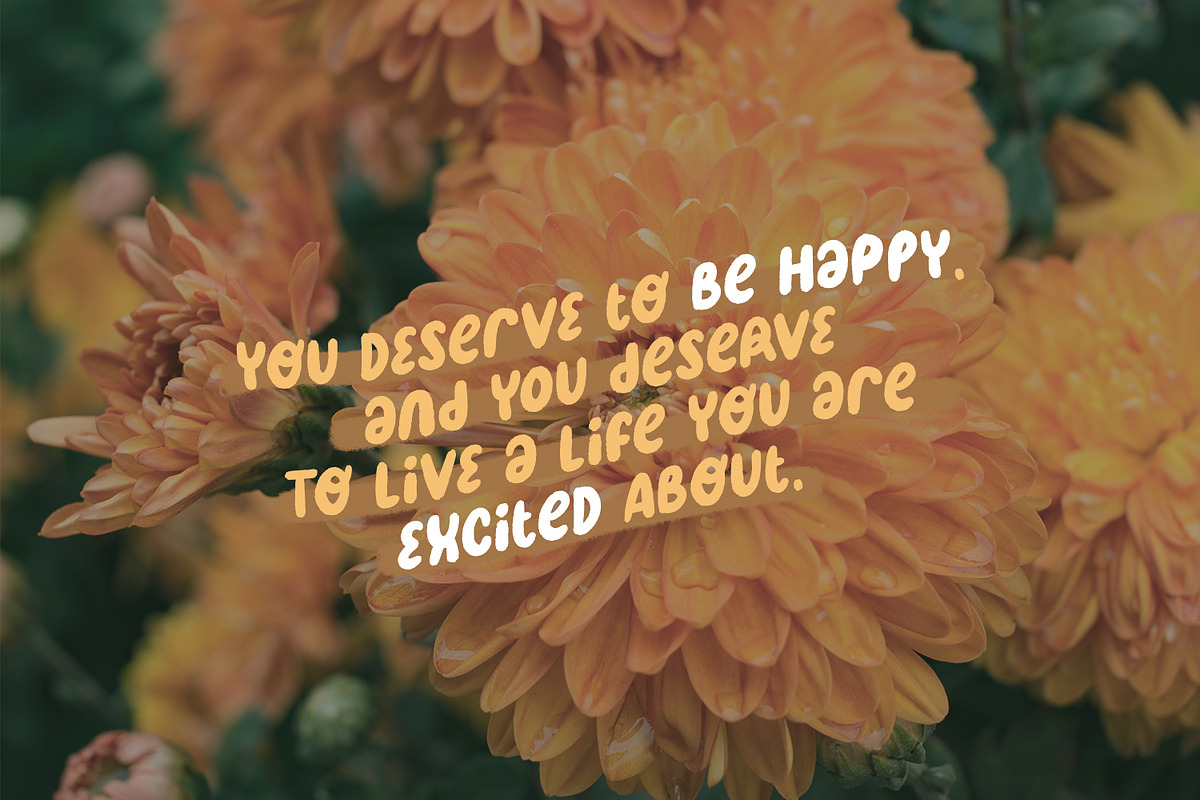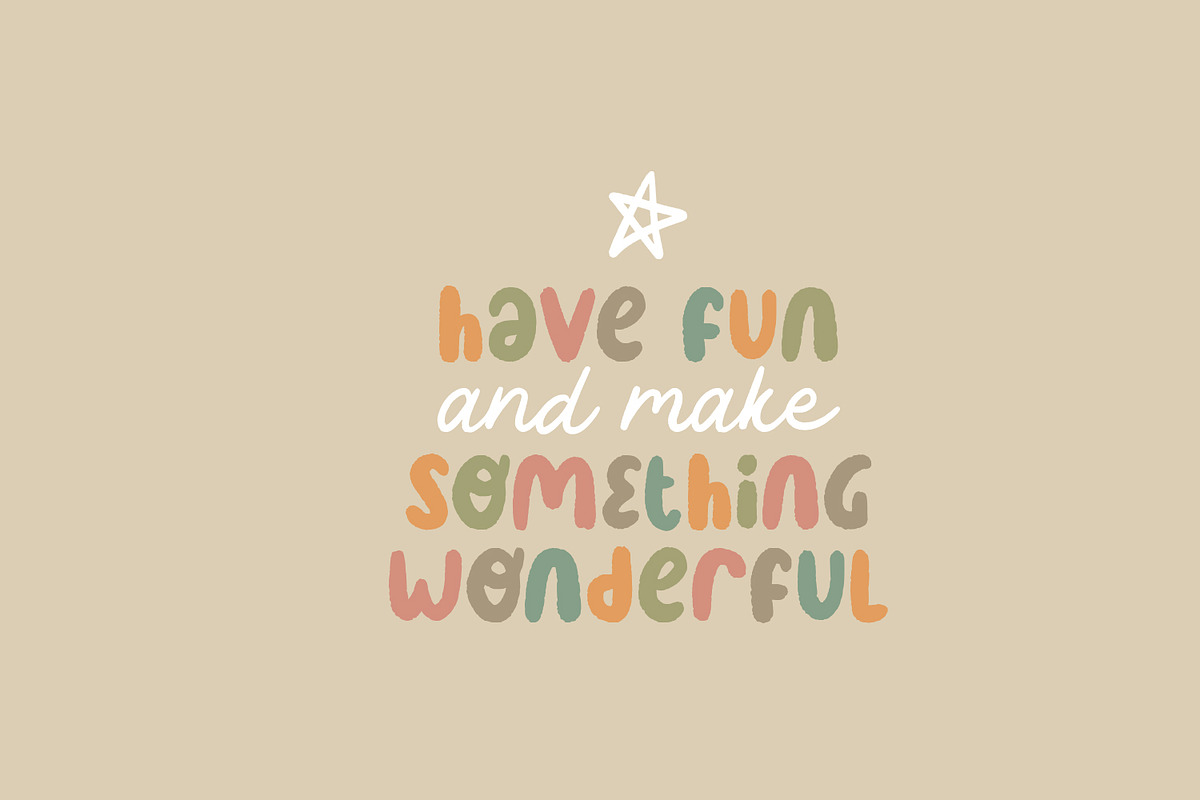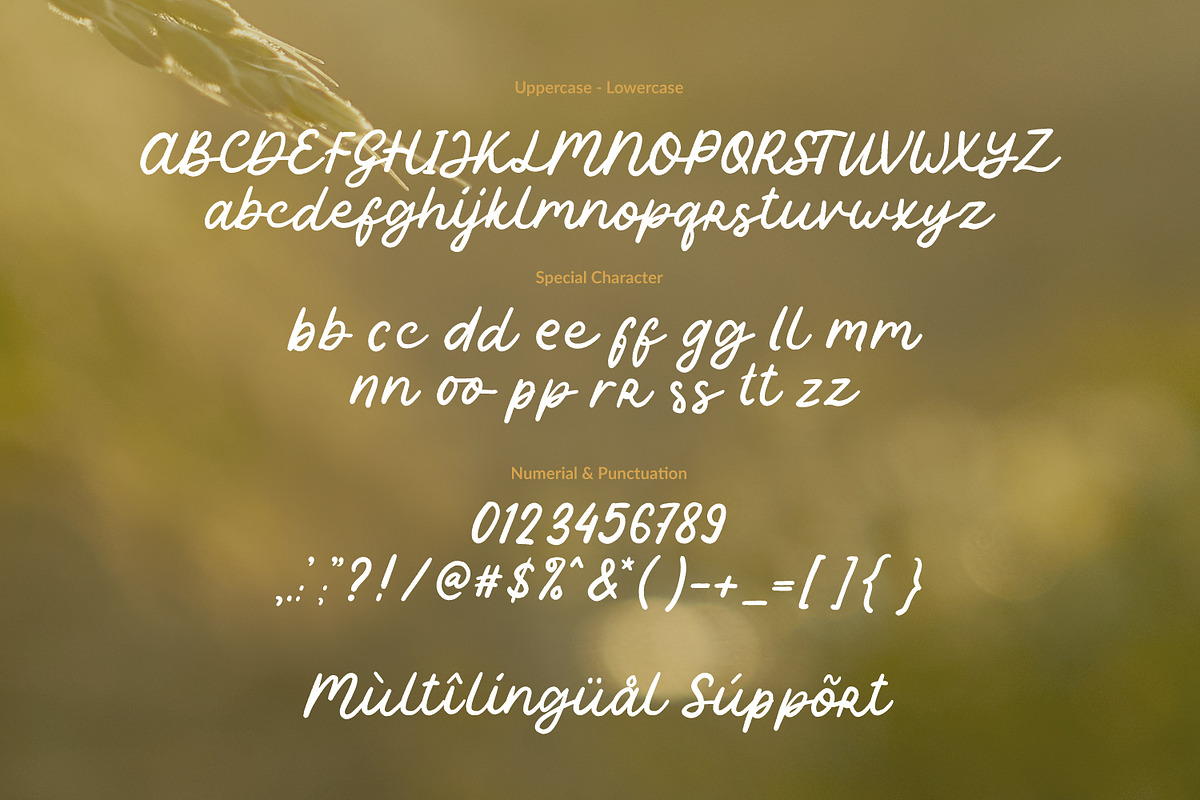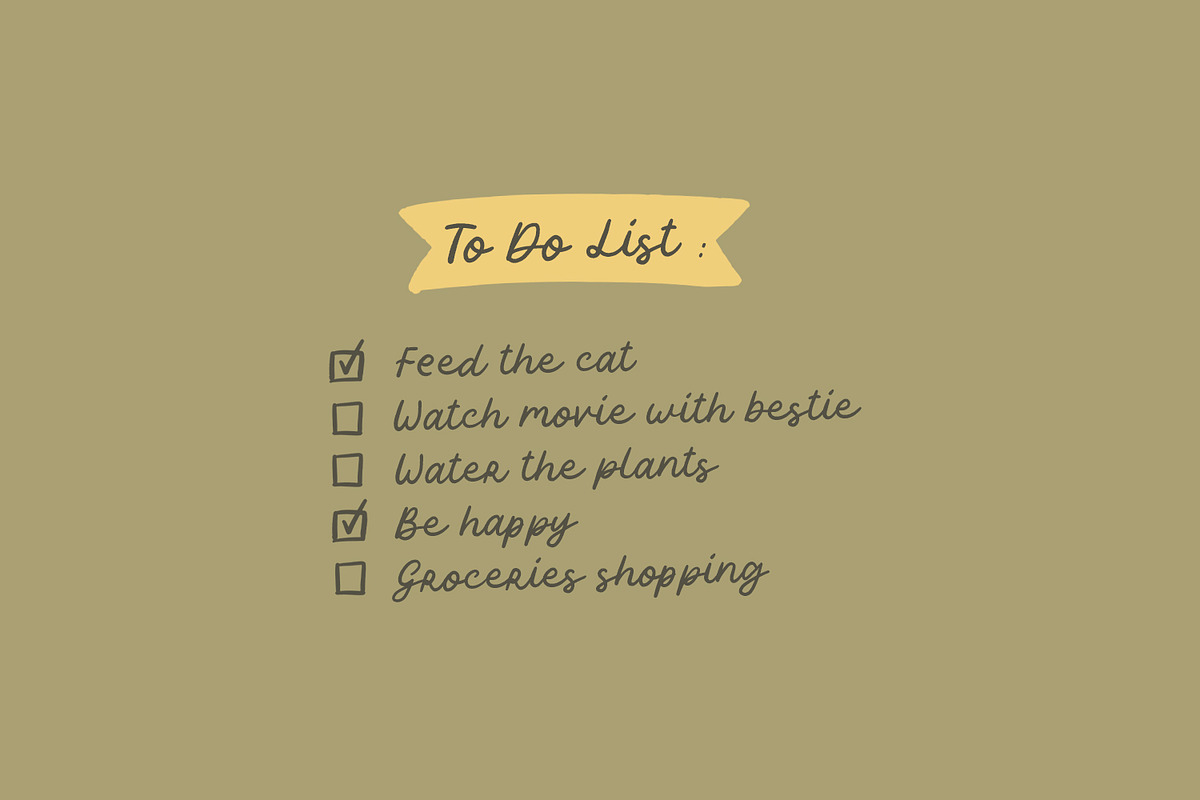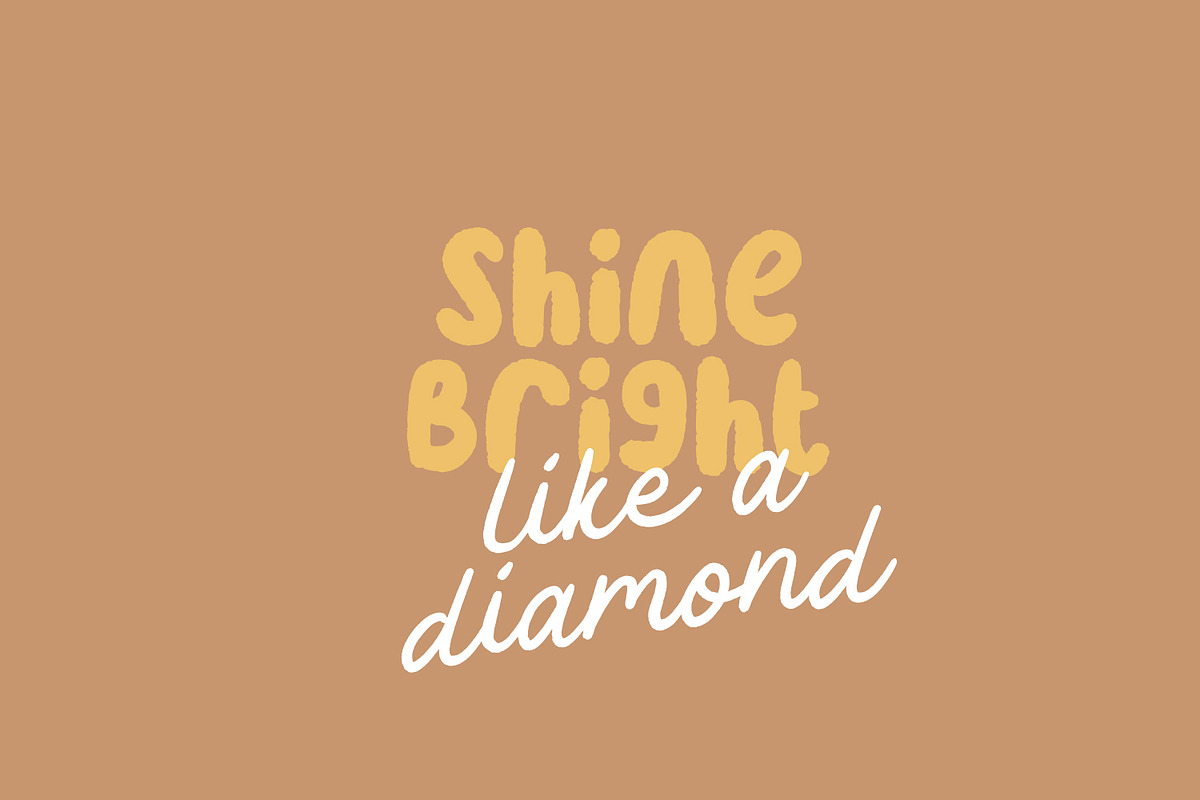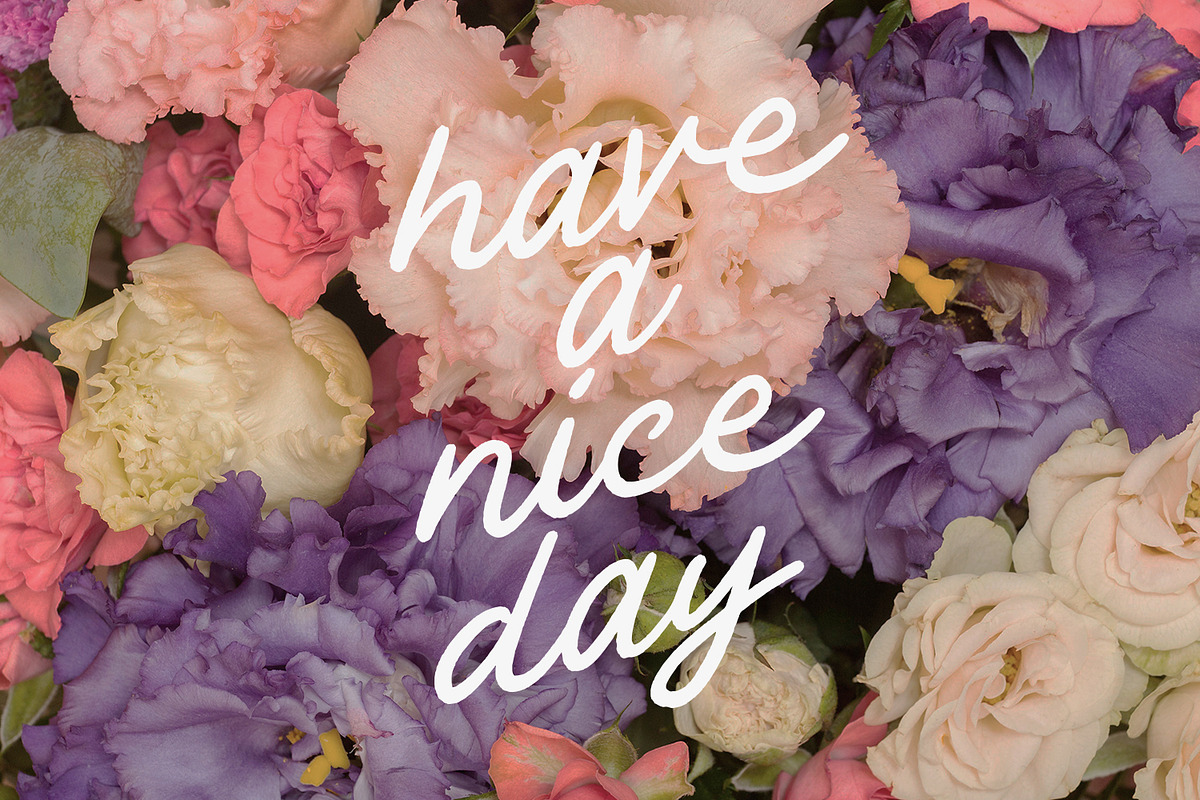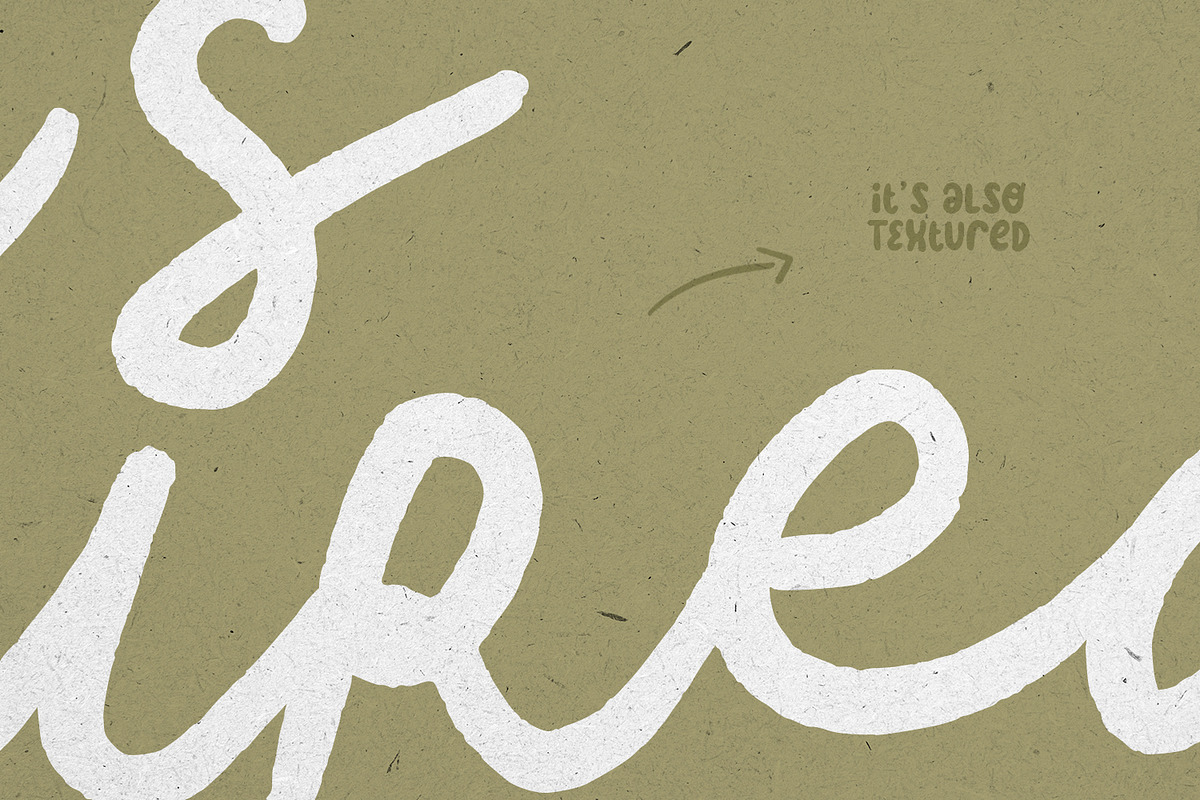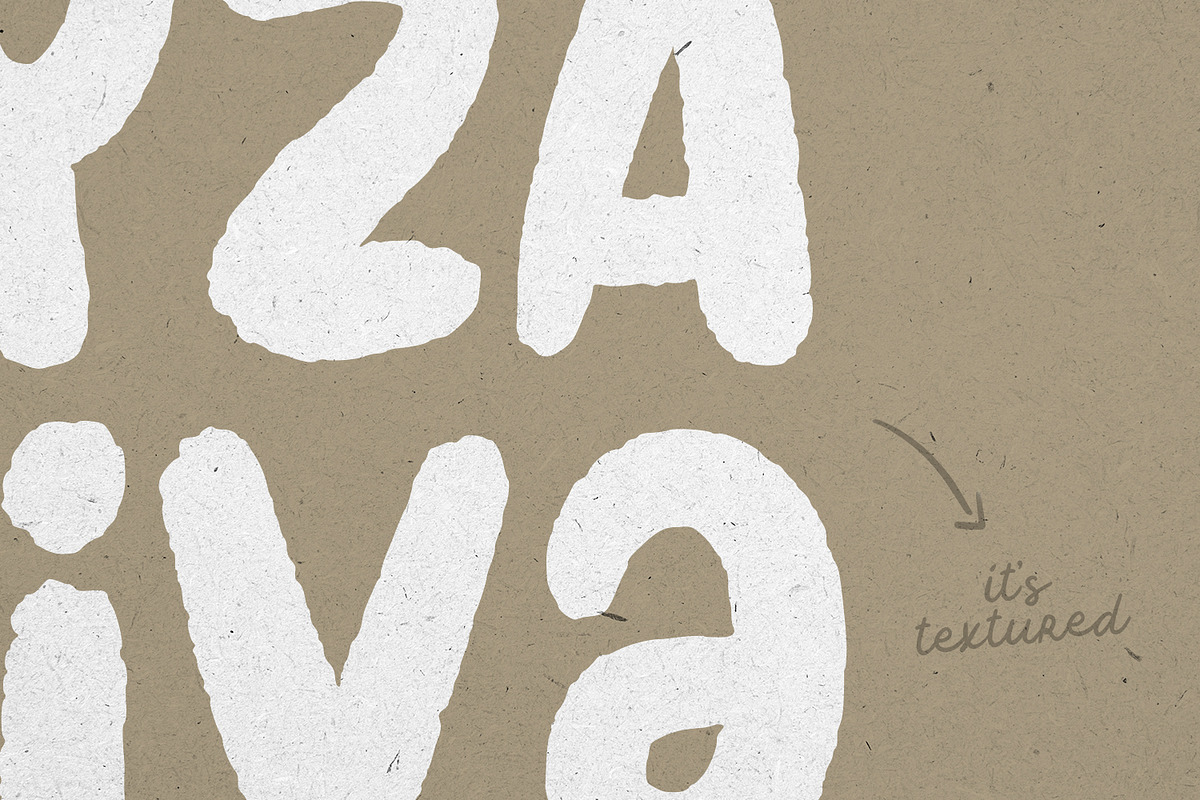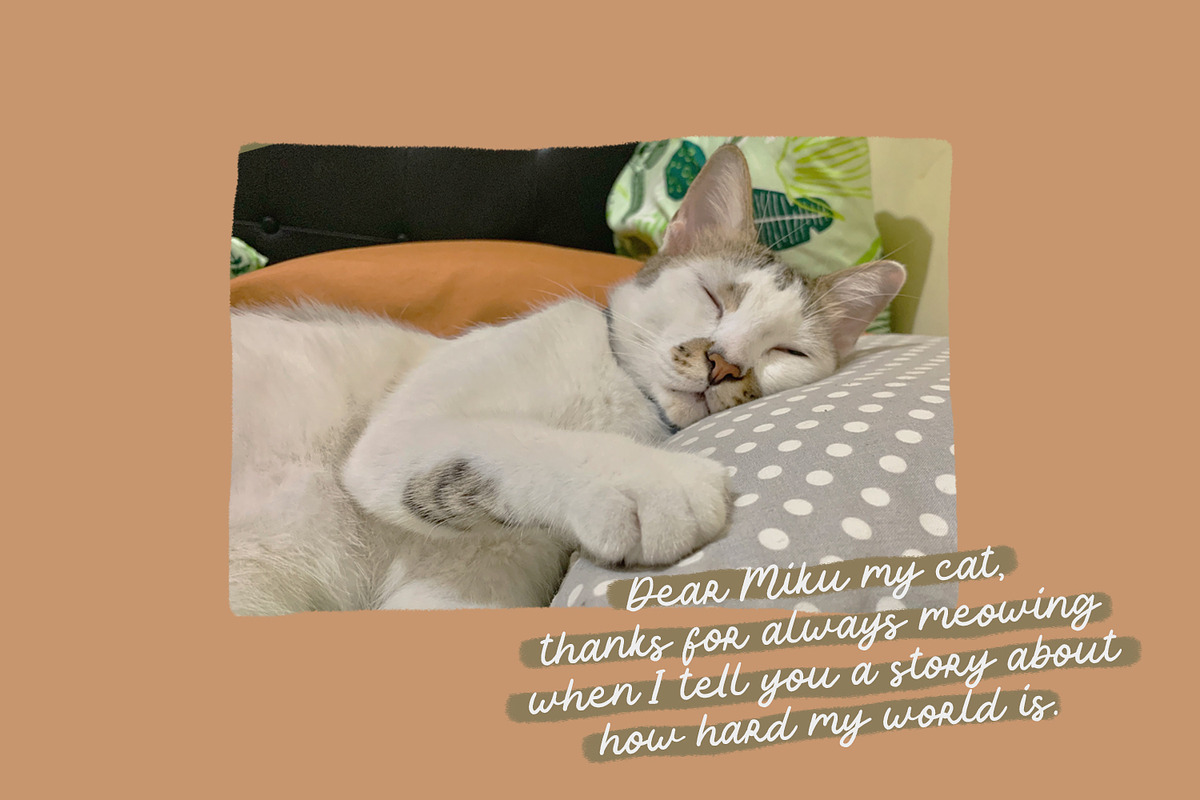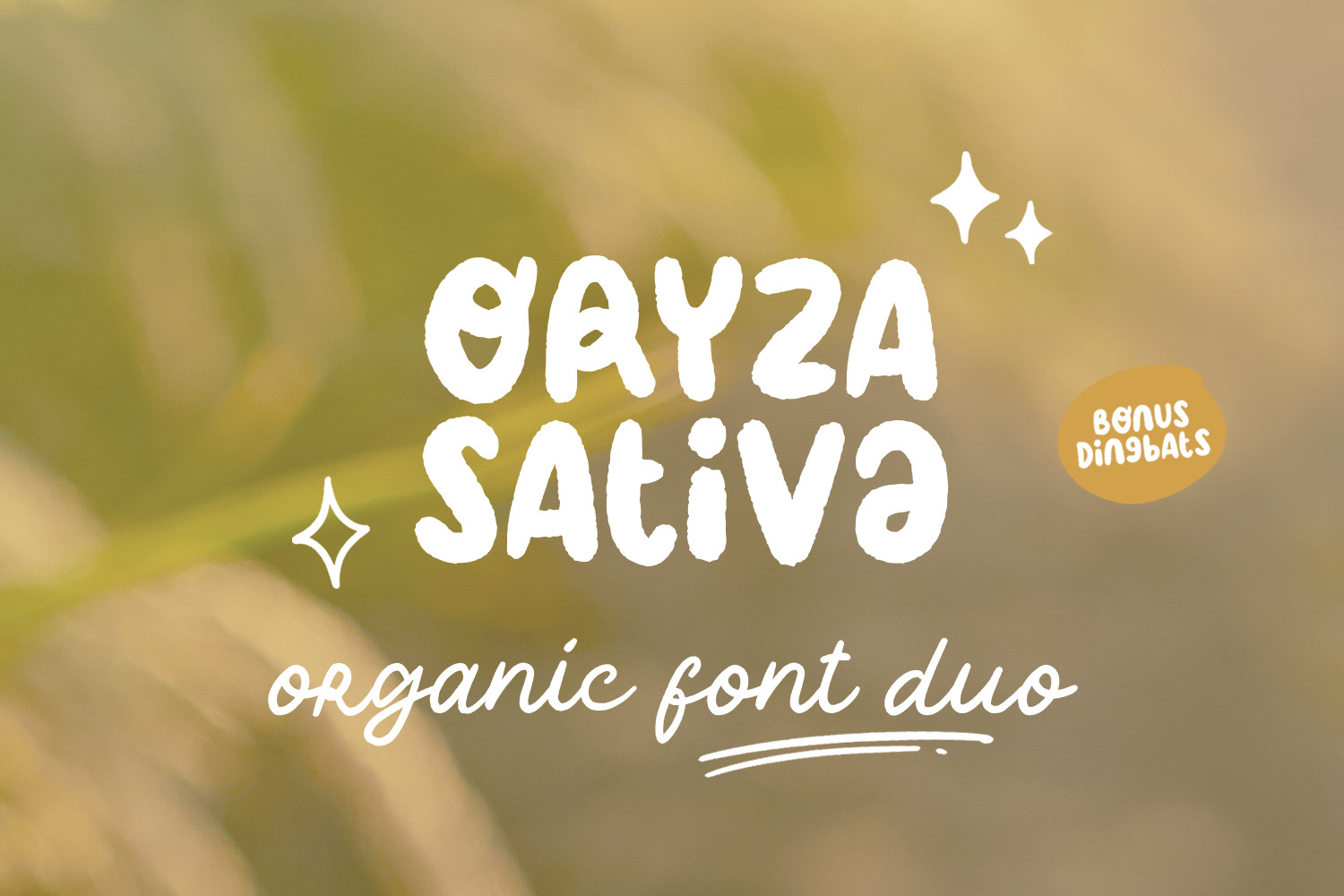
Oryza Sativa - Organic Font Duo
Please welcome Oryza Sativa, the organic font duo.
This font comes with 2 version, the regular version and script version, and also comes with dingbat bonus. Each font has rough brush texture, so it looks organic. Really perfect for any simple projects. Oryza Sativa will put a smile on your face, because its 100% handwritten, not "wow", really bad, just ordinary and simple.